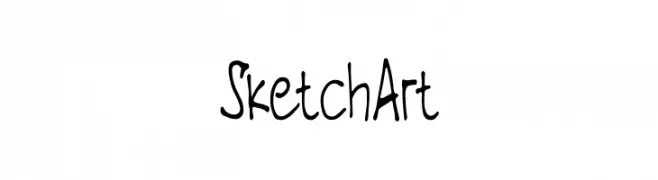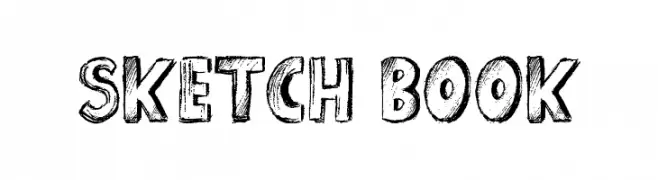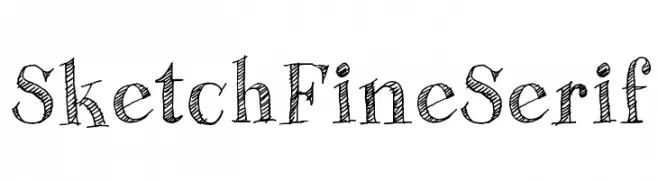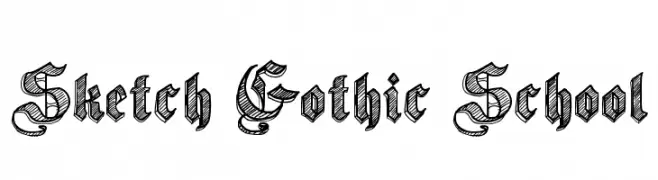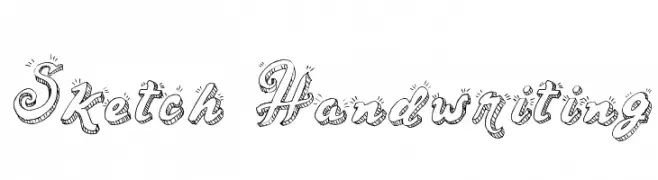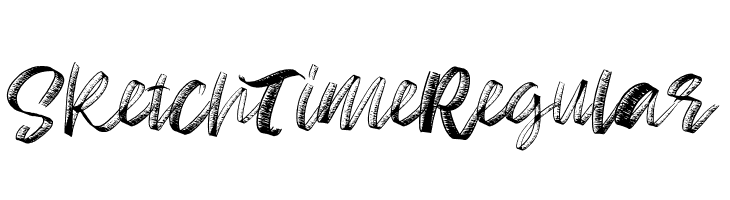
( Fonts by Typography in Decay )
A sketch-like, hand-drawn font with overlapping lines and a playful style.
A playful, sketch-like 3D font with a hand-drawn, comic style.
( Fonts by Sketch Art )
A playful, hand-drawn font with a casual and artistic style.
( Font by Jonathan Harris - www.tattoowoo.com )
A playful, sketch-like font with a hand-drawn, textured appearance.
( Fonts by Galdino Otten - galdinootten.com )
A bold, sketch-style font with a hand-drawn, textured appearance.
( Fonts by Galdino Otten - galdinootten.com )
A playful, sketch-like font with bold, textured characters.
A hand-drawn serif font with a sketch-like, textured appearance.
( Fonts by Galdino Otten - galdinootten.com )
A bold, sketch-like Gothic font with intricate, hand-drawn details.
A playful, sketch-style cursive font with a hand-drawn, three-dimensional look.